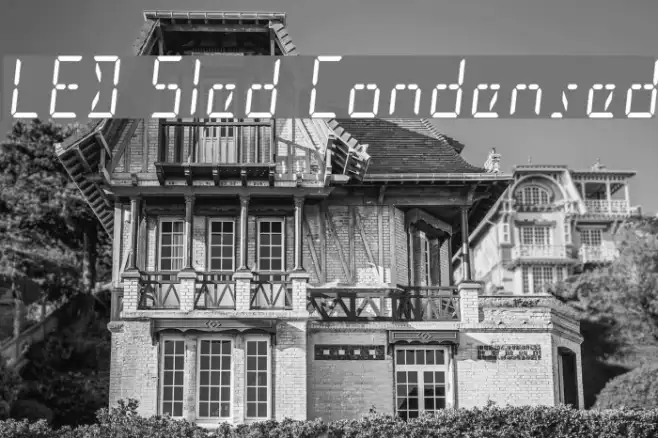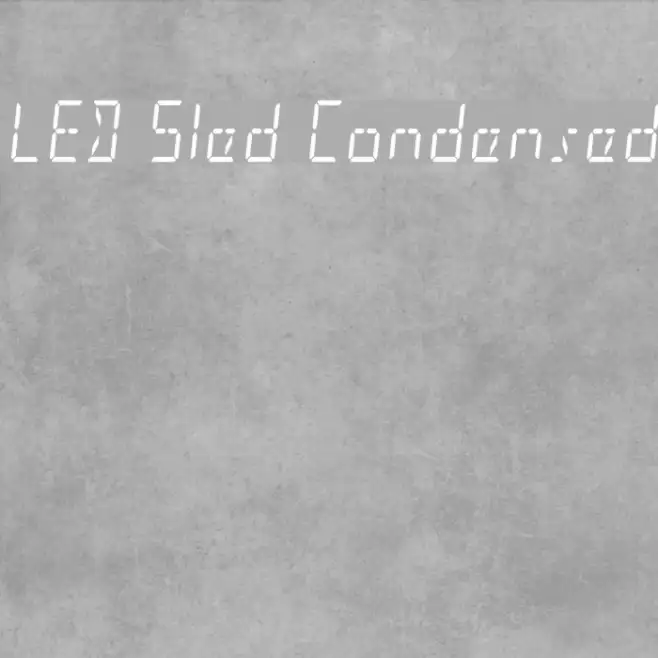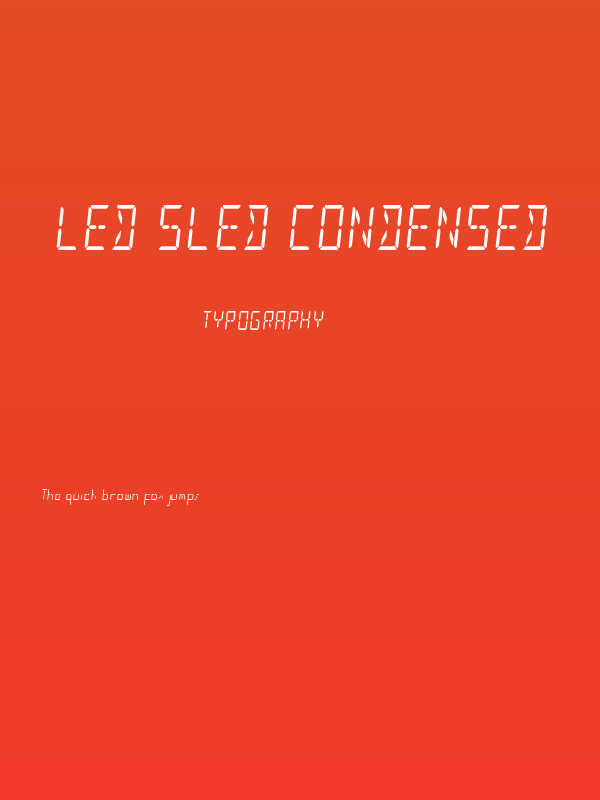
LED Sled Condensed Font
LED Sled Condensed Description
This font features a distinct digital style reminiscent of LED displays, characterized by its segmented, geometric letterforms. Each character is composed of angular lines and sharp edges, creating a futuristic and technical appearance. The uppercase and lowercase letters maintain a consistent design, with a uniform height and width that enhances readability. Numbers and special characters follow the same segmented pattern, ensuring a cohesive look across all glyphs. The condensed nature of the font allows for efficient use of space, making it ideal for digital interfaces or environments where space is limited.
| Use Case | Headlines, Logos, Digital displays |
| Proposed Projects | Ideal for digital displays, tech-themed projects, futuristic branding, and electronic device interfaces. |